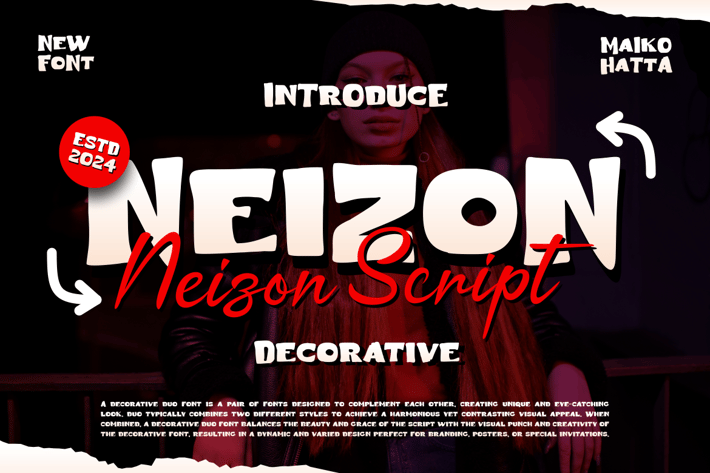
Neizon - Decorative Font Duo
Introducing our new product Neizon Decorative Font Duo
This collaboration between serif and script fonts combines the elegance of serifs with the warmth of script handwriting. Serif fonts provide a structured base, while script fonts add a touch of creativity. The result is a contrasting yet eye-catching visual harmony, perfect for conveying messages from formal to personal with a uniquely alluring style.
The collaboration between serif and script fonts is suitable for various designs such as invitations, brand promotional materials, books, greeting cards, logos, web designs, and presentations. This collaboration provides the flexibility to convey messages in an engaging style on a variety of project types, striking a balance between formal and personal looks.
Alternate
* Ligature
This collaboration between serif and script fonts combines the elegance of serifs with the warmth of script handwriting. Serif fonts provide a structured base, while script fonts add a touch of creativity. The result is a contrasting yet eye-catching visual harmony, perfect for conveying messages from formal to personal with a uniquely alluring style.
The collaboration between serif and script fonts is suitable for various designs such as invitations, brand promotional materials, books, greeting cards, logos, web designs, and presentations. This collaboration provides the flexibility to convey messages in an engaging style on a variety of project types, striking a balance between formal and personal looks.
Alternate
* Ligature